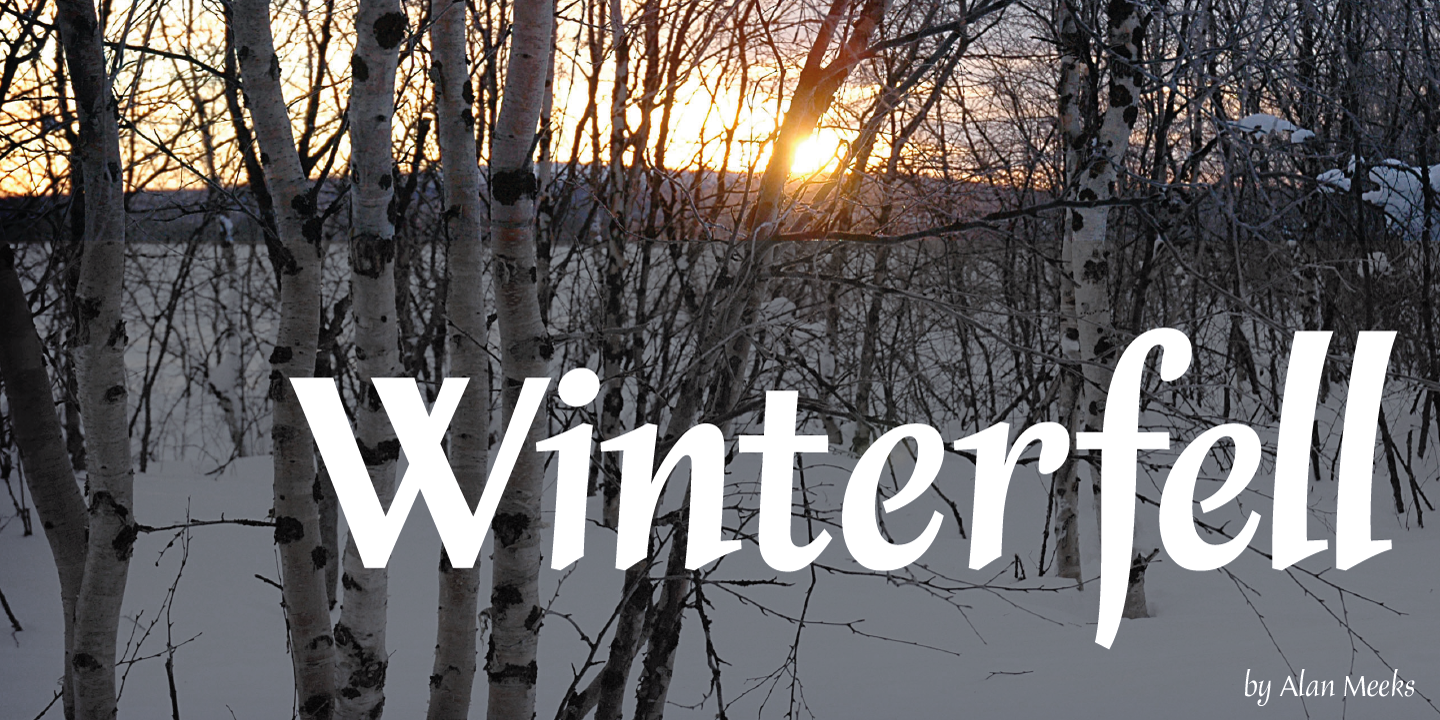
Winterfell
Designed by Alan Meeks, Winterfell is a serif font family. This typeface has three styles and was published by Alan Meeks Collection.
It is difficult to define the classification of Winterfell.
The caps are definitely Roman however the lowercase is italic and slightly calligraphic.
Because of its old style look I decided to describe it as modern medieval.
This design reminded me of Game of Thrones hence the name Winterfell